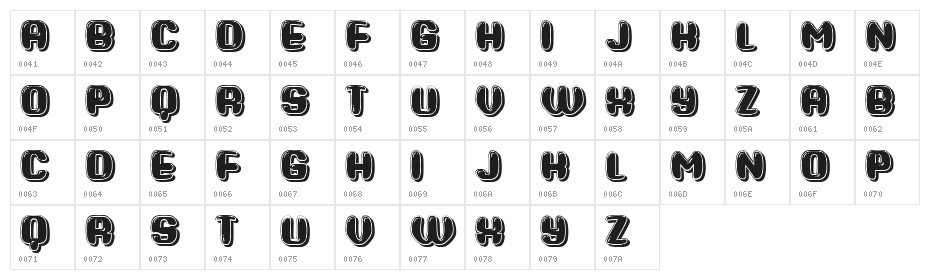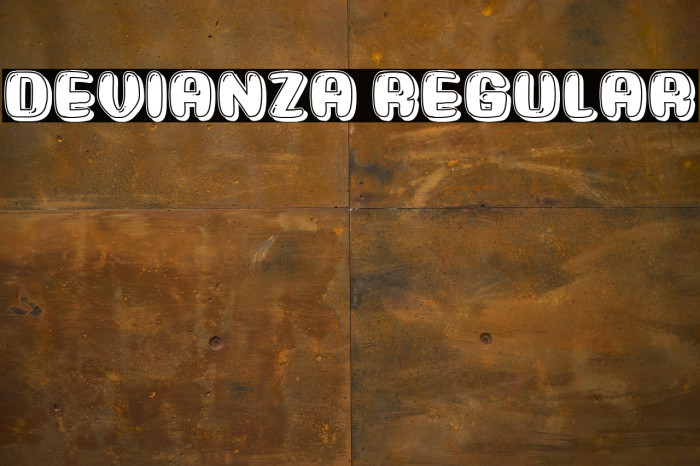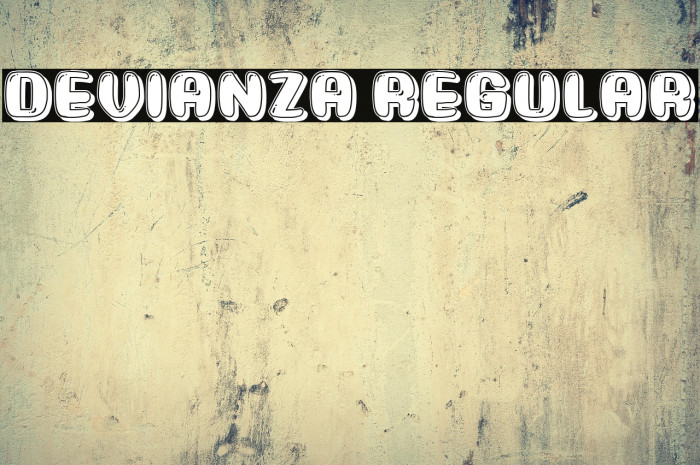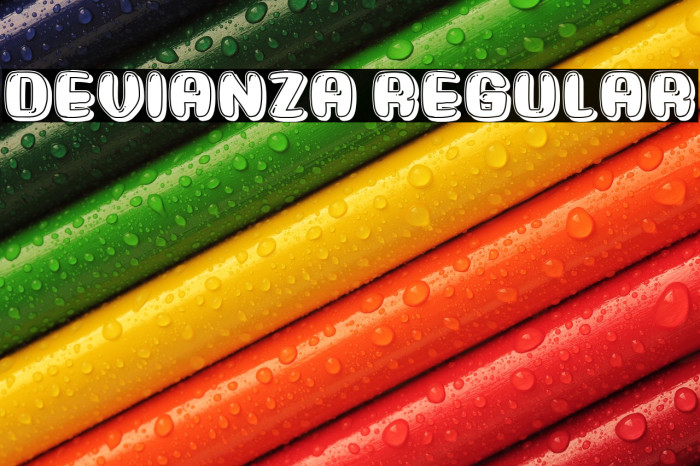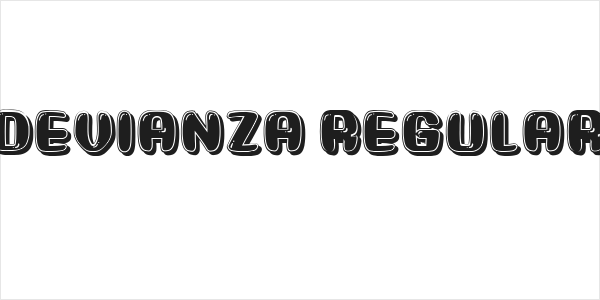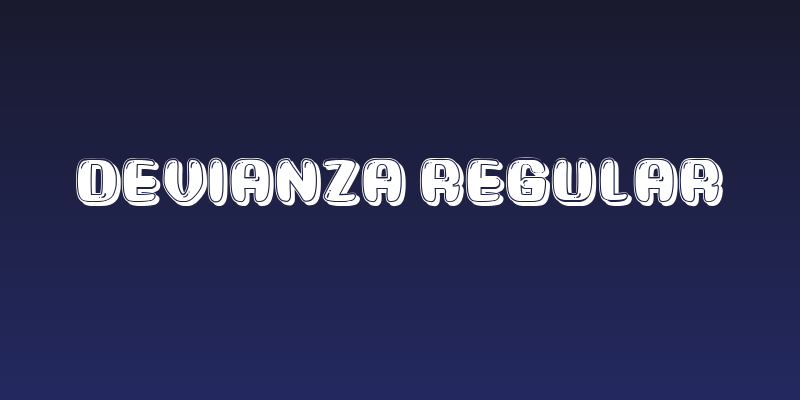
Devianza Regular Font
Devianza Regular Description
This font features a bold, playful design with a strong presence. The letters are characterized by thick, rounded strokes and a distinct outline that adds depth and dimension. The style is reminiscent of retro or vintage aesthetics, making it ideal for eye-catching designs. The uppercase letters are uniform in height, while the lowercase letters maintain a consistent style, ensuring readability. The numbers and special characters follow the same bold and outlined pattern, providing a cohesive look across all characters. This font's unique style makes it suitable for projects that require a fun and engaging visual impact.
| Overall Style | Vintage |
| Proposed Projects | Ideal for posters, logos, branding, and any design needing a vintage or playful touch. |